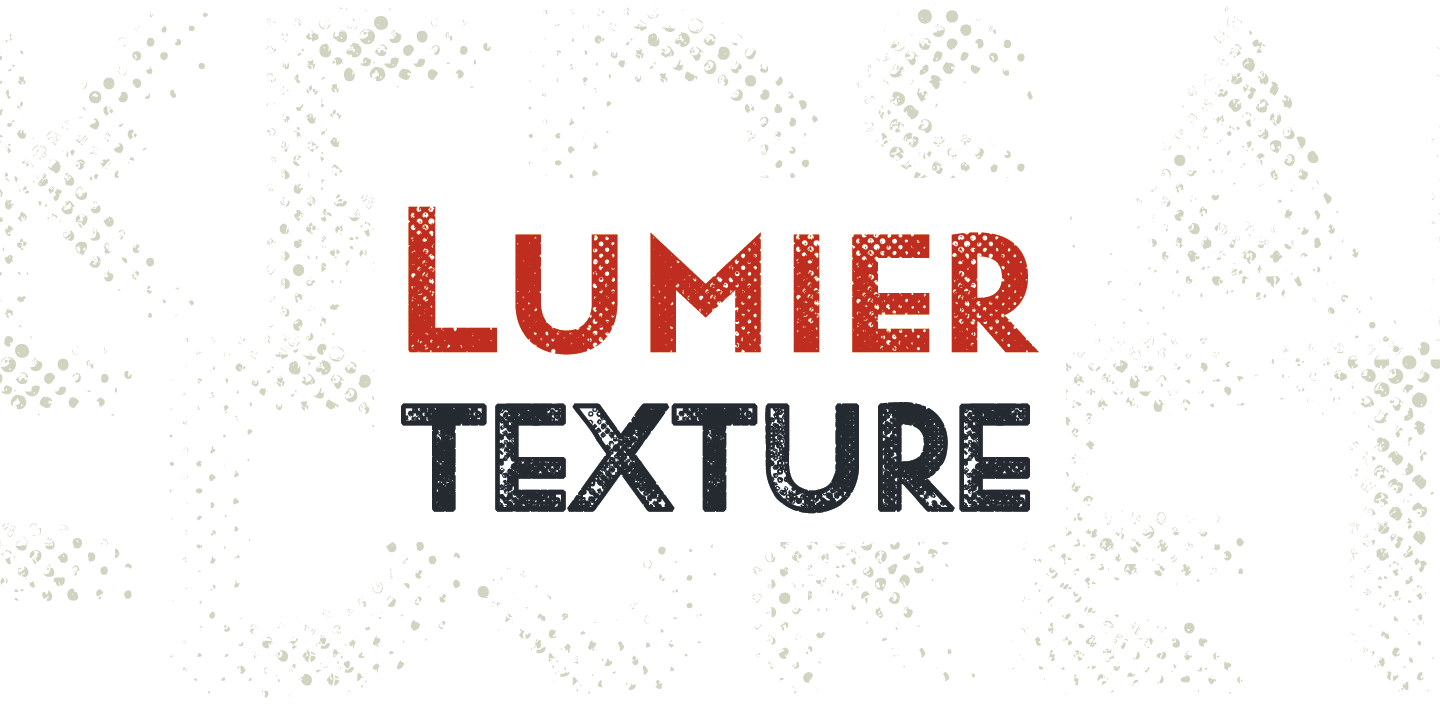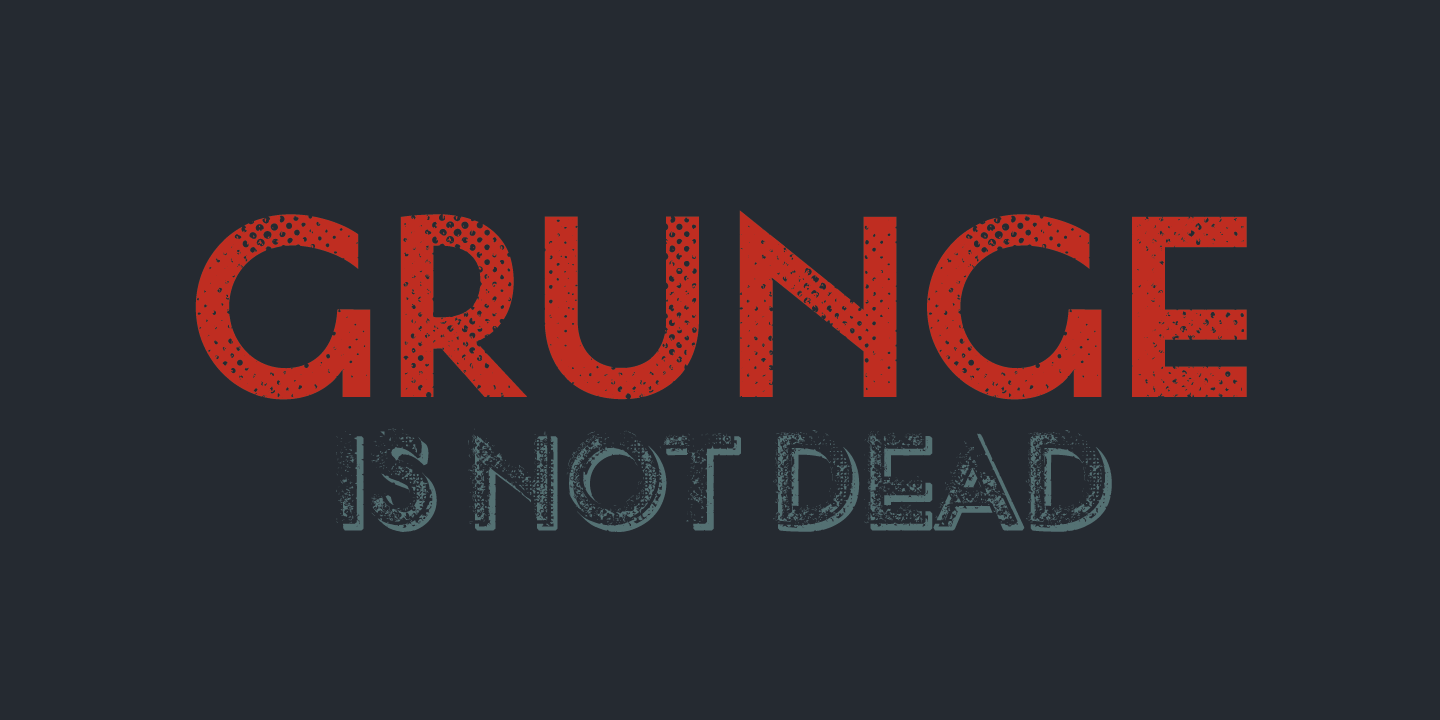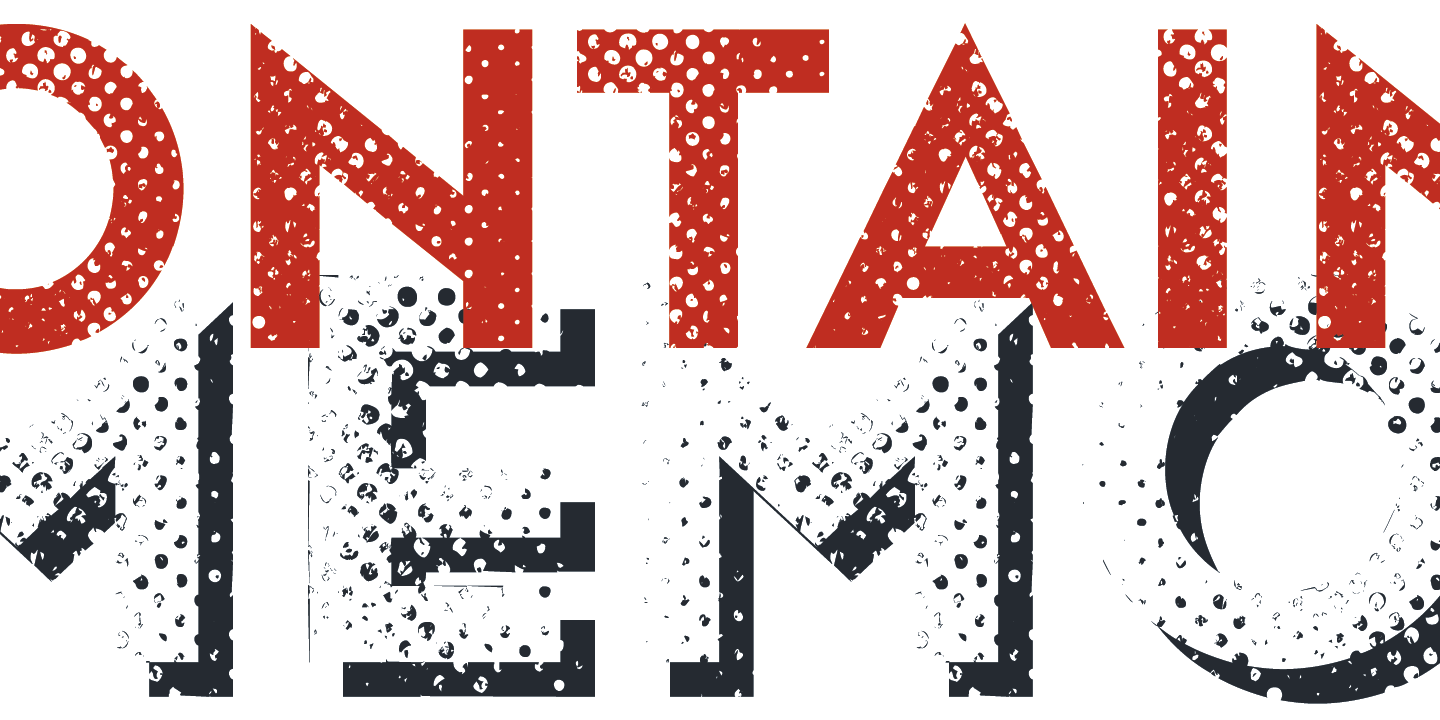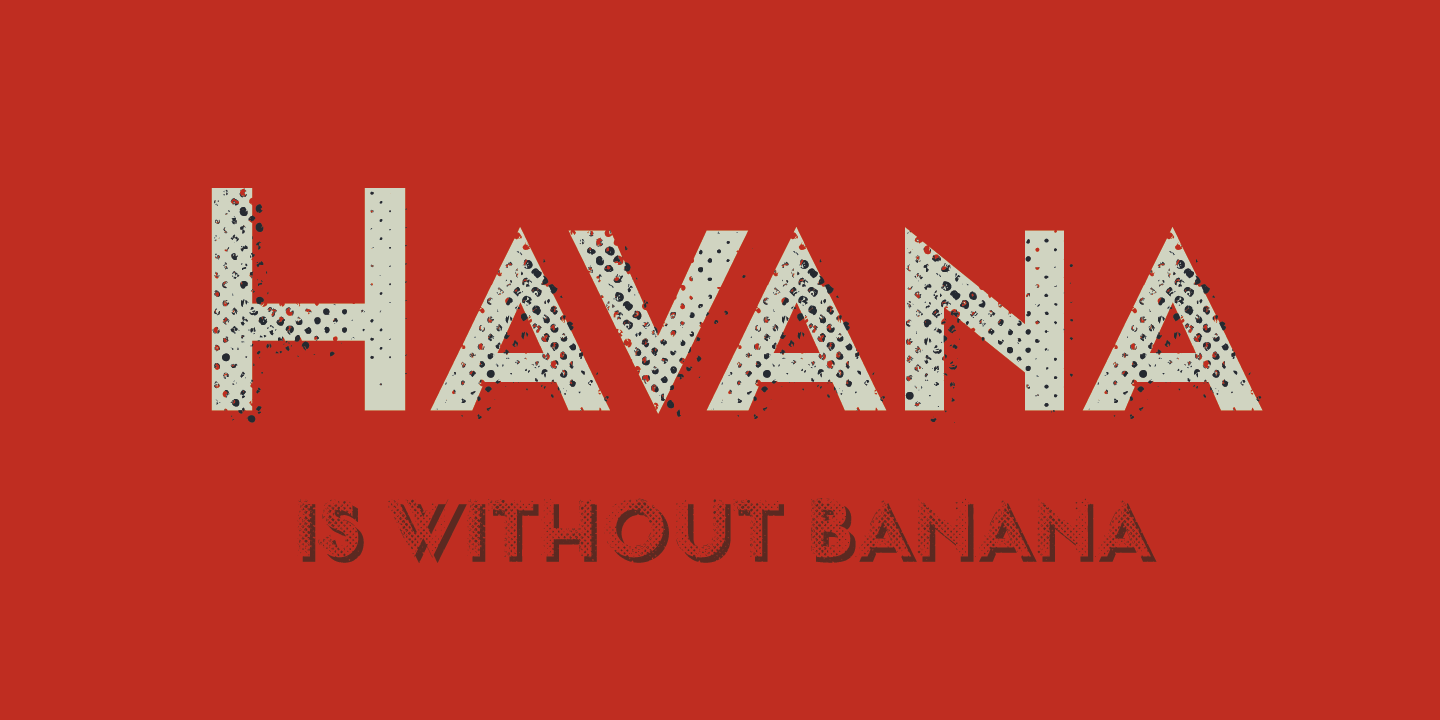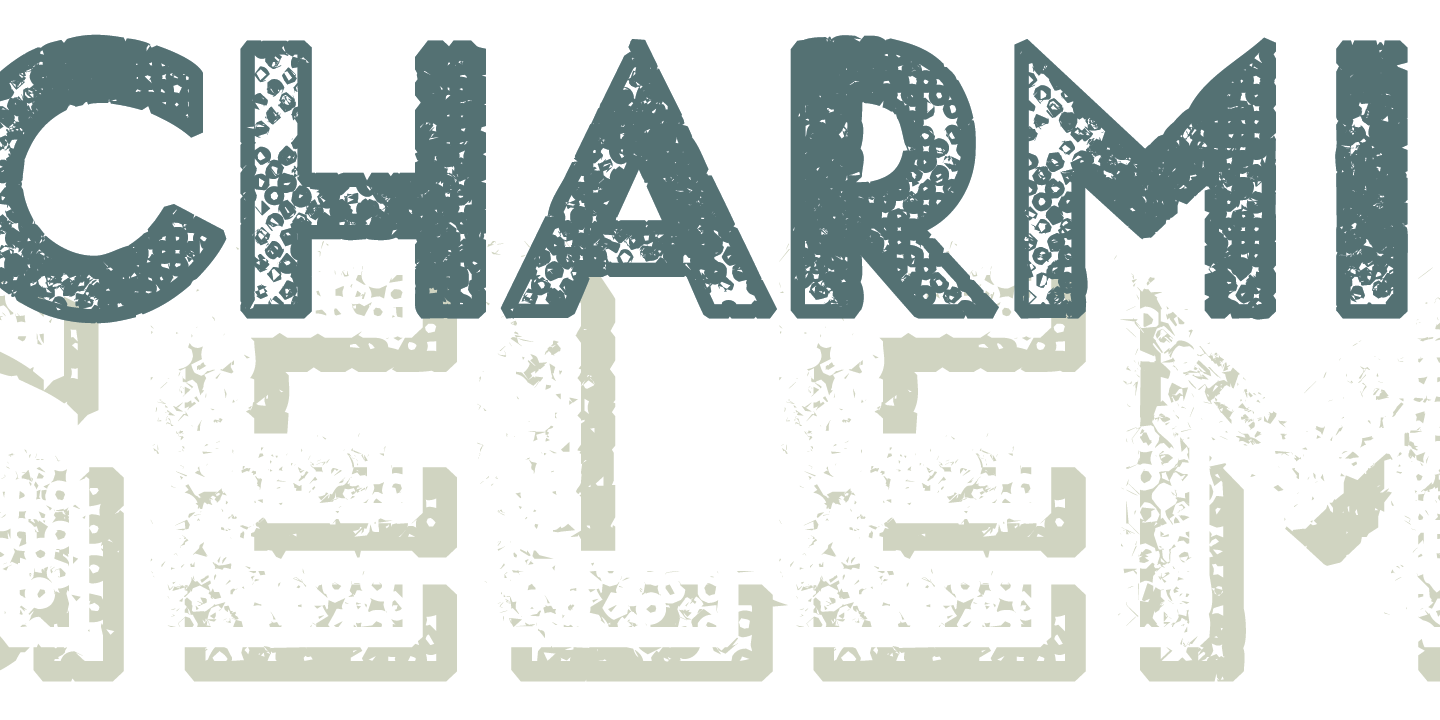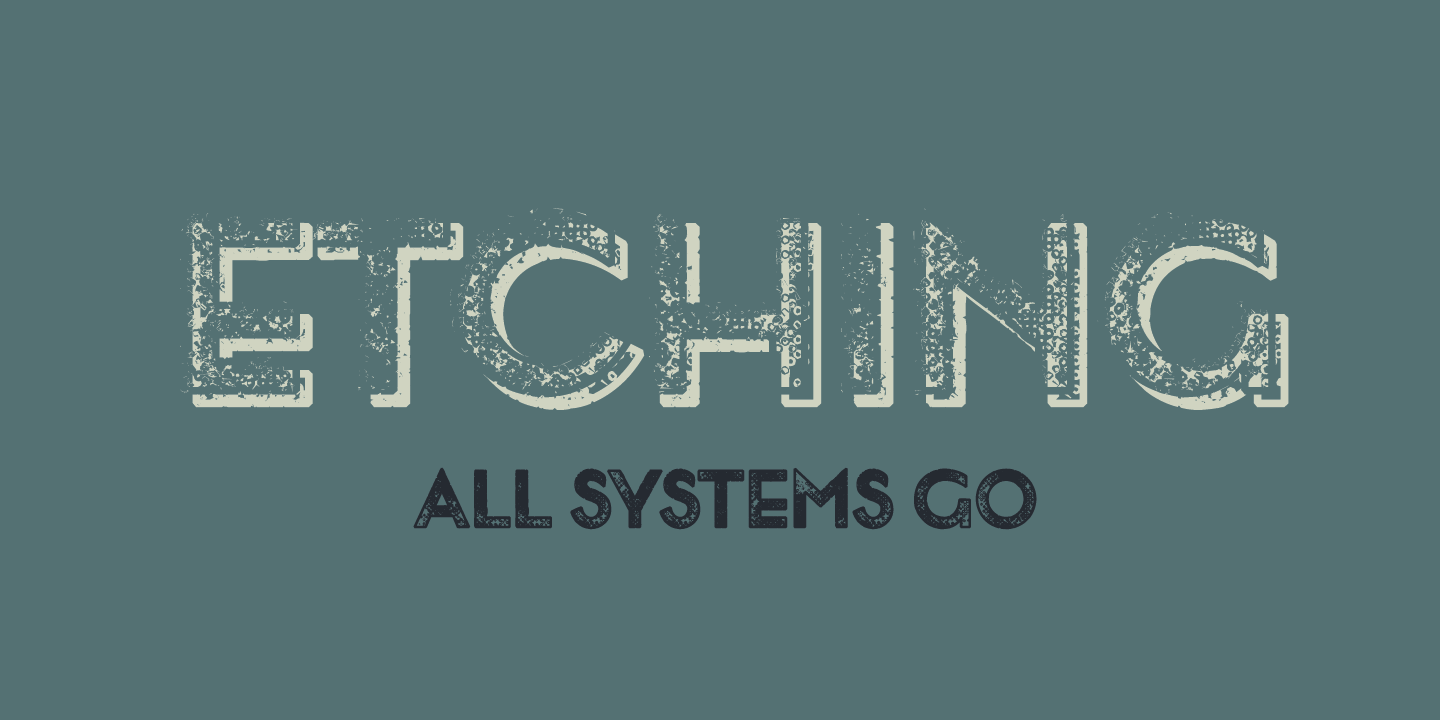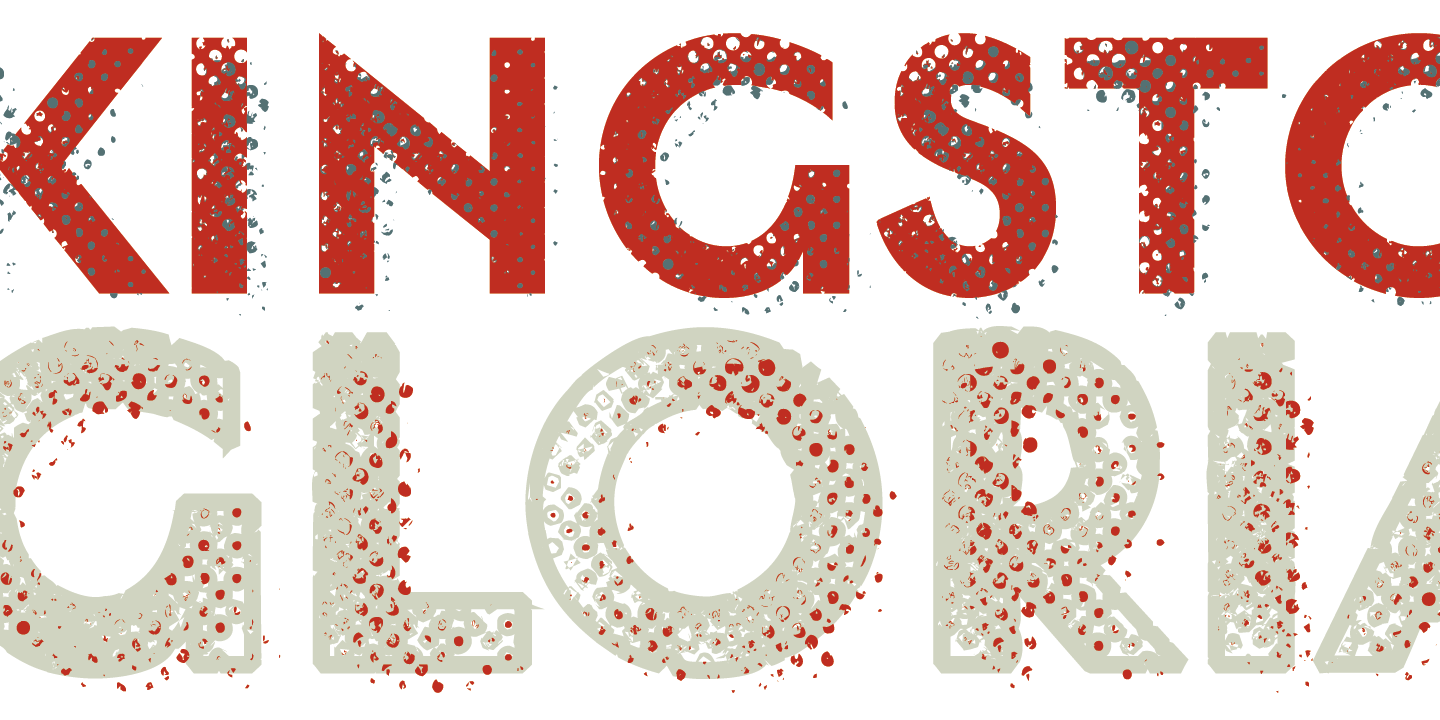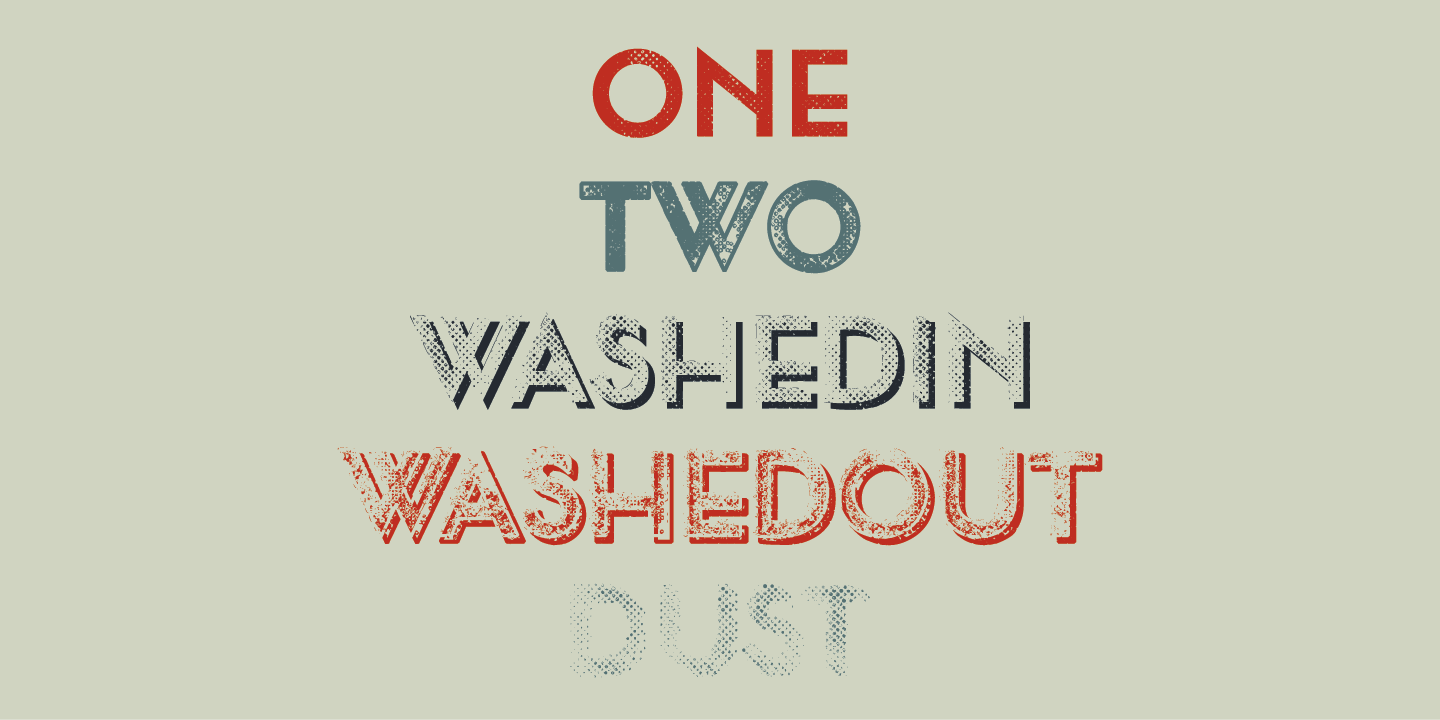
Lumier Texture is font family targeting designers who work with packages, labels, posters - who are looking for characteristic and striking letters. It's textured version of Lumier font family and as that, it's compatible with Lumier Bold. It is adviced to be used as desktop font only.